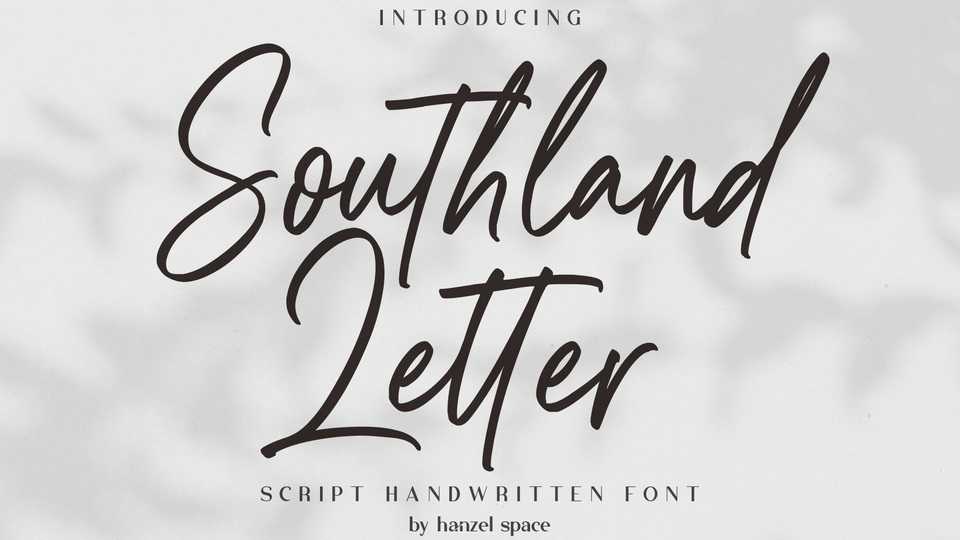
Download Southland Letter font, a handwritten typeface with contemporary, sophisticated accents. Southland Letter is perfect for branding, wedding invites, tagline, cards, maybe for label and logo.